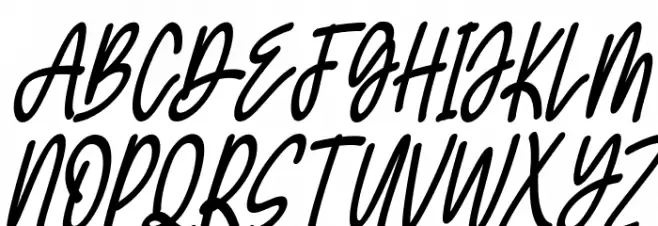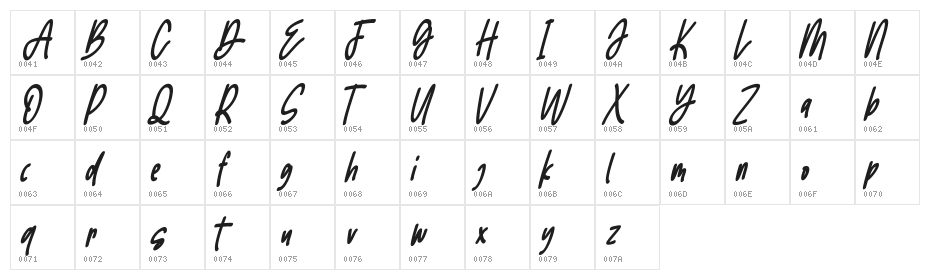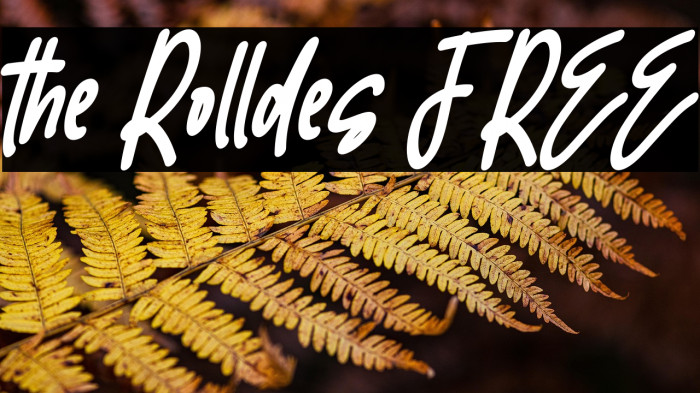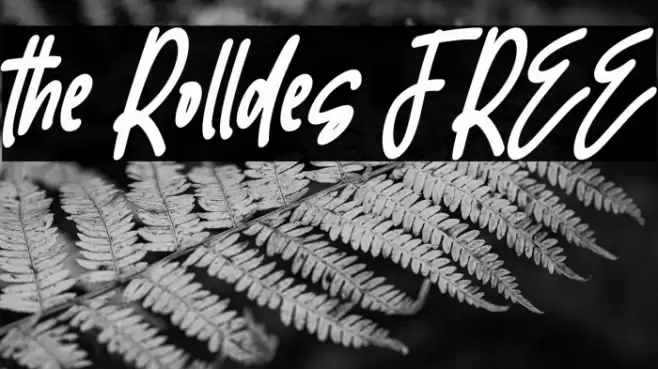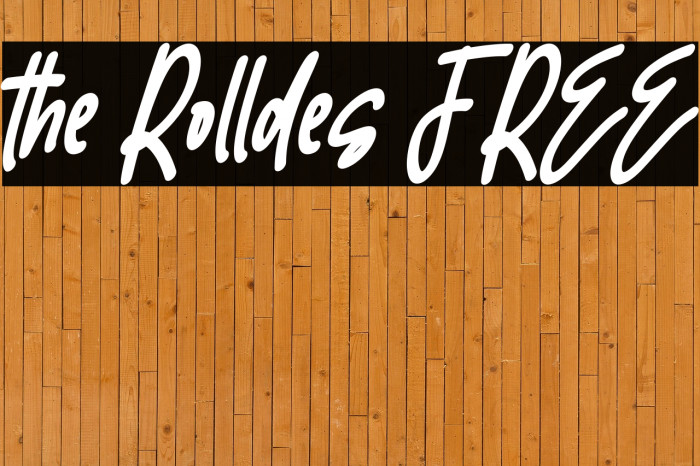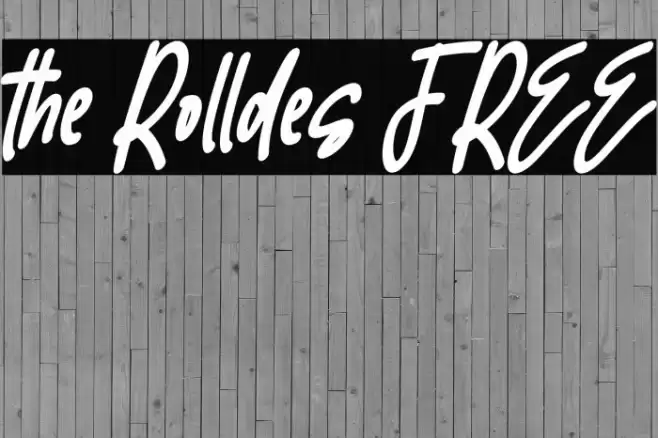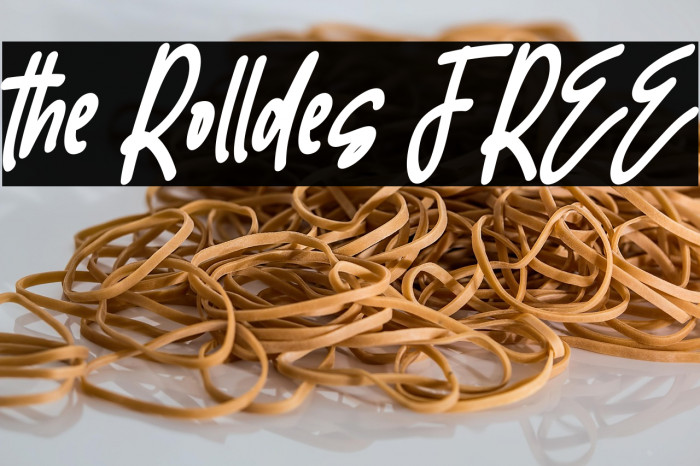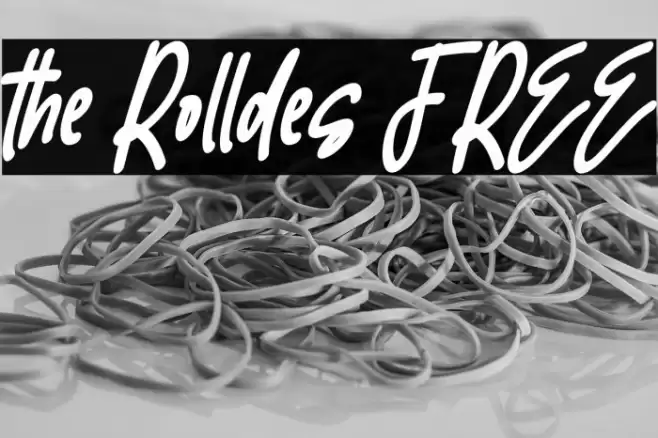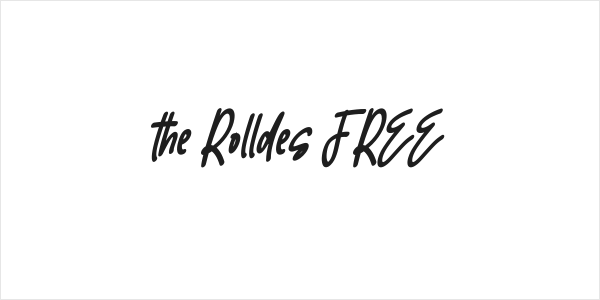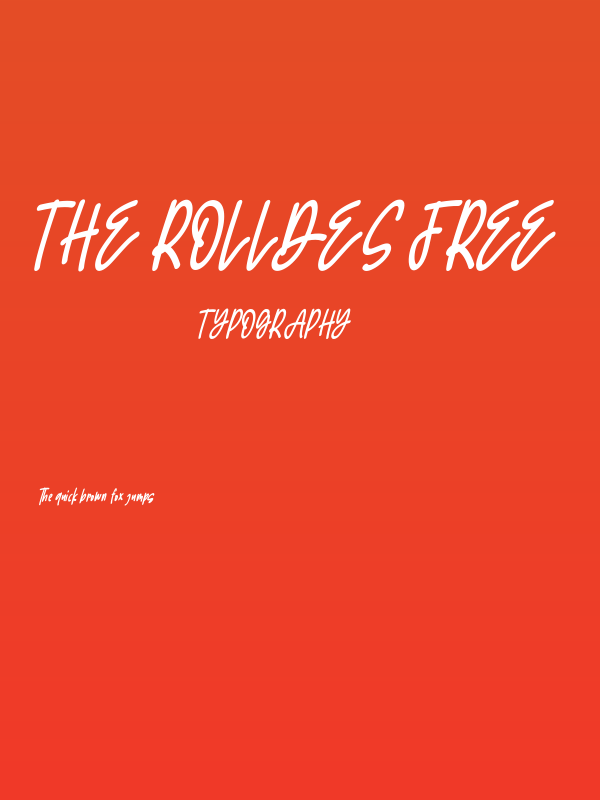
the Rolldes FREE Font
the Rolldes FREE Description
This font exudes a dynamic and energetic vibe with its bold, handwritten style. The letters are crafted with a fluid motion, giving the impression of swift, confident strokes. Each character is distinct yet harmoniously connected, creating a sense of continuity and flow. The uppercase and lowercase letters maintain a consistent style, with slightly exaggerated curves and loops that add a playful touch. The numbers and special characters are equally expressive, maintaining the overall aesthetic. This font is perfect for projects that require a personal, informal touch while still being bold and eye-catching.
| Overall Style | Modern, Decorative |
| Use Case | Logos, Headlines, Posters |
| Proposed Projects | Ideal for branding, social media graphics, posters, and invitations where a personal and energetic touch is desired. |